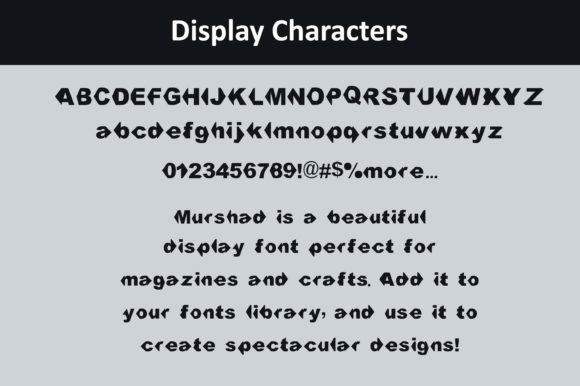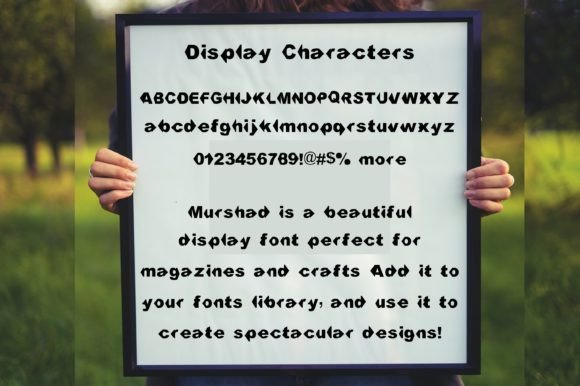
Introduction to Murshad Font
Have you ever found yourself in the middle of a creative project, staring at a blank canvas, and suddenly, the perfect font pops into your mind? That’s exactly what happened to me when I discovered the Murshad Font. Its beautiful display style had me hooked from the very first glance, and I knew I had to share it with fellow designers.
The Murshad Font is a treasure trove for designers, offering a high-quality design resource that can elevate any project. With its free download and transparent background, you can add it to your fonts library and start creating wonderful designs instantly. Whether you’re working on a magazine, a craft project, or simply want to add a touch of elegance to your designs, the Murshad Font is a valuable addition to your toolkit.
So, let’s dive into the world of Murshad Font and explore its features, benefits, and ways to use it in your creative projects.
Key Features of Murshad Font
- High-quality, professional font design ideal for creative projects, including logos, branding, and typography.
- Features a transparent background, allowing for seamless integration with various backgrounds and designs.
- Available in a single size, with a resolution of 72 dpi, making it suitable for digital use, such as web design and social media graphics.
- Unique characteristics include a modern, elegant aesthetic and a wide range of customization options, making it an excellent choice for designers looking to add a touch of sophistication to their creative projects.
- Perfect for designers and artists working on high-quality design projects, including brochures, magazines, and advertising materials.
Honest Review: Murshad Font
One of the standout features of the Murshad Font is its ability to work seamlessly with transparent backgrounds. This makes it a valuable design resource for anyone looking to add a touch of elegance to their designs.
- Works well with transparent backgrounds
However, I do have a few concerns about the Murshad Font. ⚠️
- Some characters may not be fully compatible with certain font sizes or styles
- Limited language support (may not be ideal for multilingual designs)
Overall, I’m impressed with the Murshad Font’s unique design and versatility. While it may have some limitations, it’s definitely a valuable addition to any design library.
For optimal results, use Murshad Font in conjunction with other high-quality design resources. Experiment with different font sizes, colors, and arrangements to create visually striking effects. Additionally, take advantage of the font’s transparent background to create layered, 3D-like designs.
Common Use Cases for Murshad Font
Murshad Font is ideal for a wide range of creative projects, including branding, advertising, and digital art. Its versatility and high quality make it a valuable addition to any designer’s toolkit.